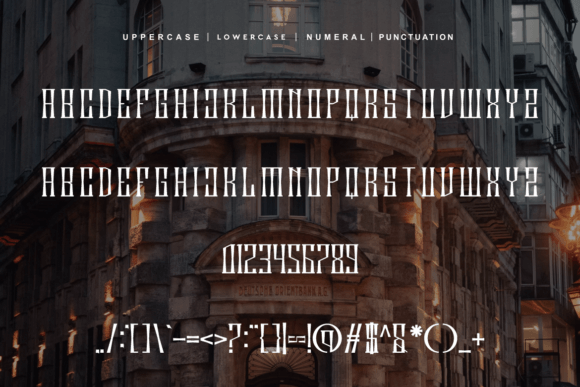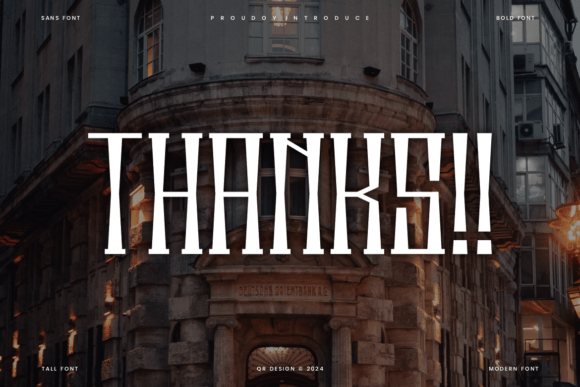
First Impressions: A Bold and Dramatic Font
Deadropz is a striking tall and condensed display font with a bold, gothic-inspired aesthetic. Its sharp edges and elongated letterforms evoke a sense of drama and sophistication, making it perfect for high-impact designs such as posters, album covers, branding, and editorial layouts. Deadropz commands attention with its modern yet vintage flair, which is ideal for projects that require a distinct and daring look.
- ✨ **Bold and Dramatic**: Deadropz makes a statement. Its tall, condensed letterforms are perfect for headlines, titles, and any design that needs to stand out.
- ✅ **Versatile**: Despite its strong aesthetic, Deadropz can be used in various contexts, from modern branding to more vintage-inspired projects.
- 💡 **Easy to Read**: Even at smaller sizes, Deadropz remains legible, which is a huge plus for designs that need to be both eye-catching and readable.
While Deadropz is an amazing font, there are a few things to keep in mind:
- ⚠️ **Limited Use in Body Text**: Due to its condensed nature and bold aesthetic, Deadropz isn’t ideal for long body text. It’s best used for headlines or short bursts of text.
- 🤔 **Kerning**: As with many condensed fonts, you might need to adjust the kerning to ensure letters aren’t too tight or overlapping, especially in words with tricky letter combinations.
- Take advantage of OpenType features like **Stylistic Alternates** and **Glyphs** to add variety to your text.
The Story Behind Deadropz
Deadropz was inspired by the gothic and industrial architecture of old cities. Its creator aimed to capture the essence of these structures—strong, bold, and unapologetic. The font is designed to make a statement, whether used in branding, posters, or digital media.
Q: What type of projects is Deadropz best suited for?
A: Deadropz is ideal for projects that require a bold and dramatic look, such as posters, album covers, branding, and editorial layouts.
Q: Can I use Deadropz for body text?
A: While Deadropz can be legible at smaller sizes, it’s primarily designed for headlines and short bursts of text. For long body text, a more readable font would be better.
Q: Does Deadropz support OpenType features?
A: Yes, Deadropz supports OpenType features, including stylistic alternates and glyphs, which can be used in compatible software like Adobe Photoshop and Illustrator.
Q: Is Deadropz suitable for digital use?
A: Absolutely! Deadropz is versatile and can be used in both print and digital media, making it perfect for website headers, social media graphics, and more.